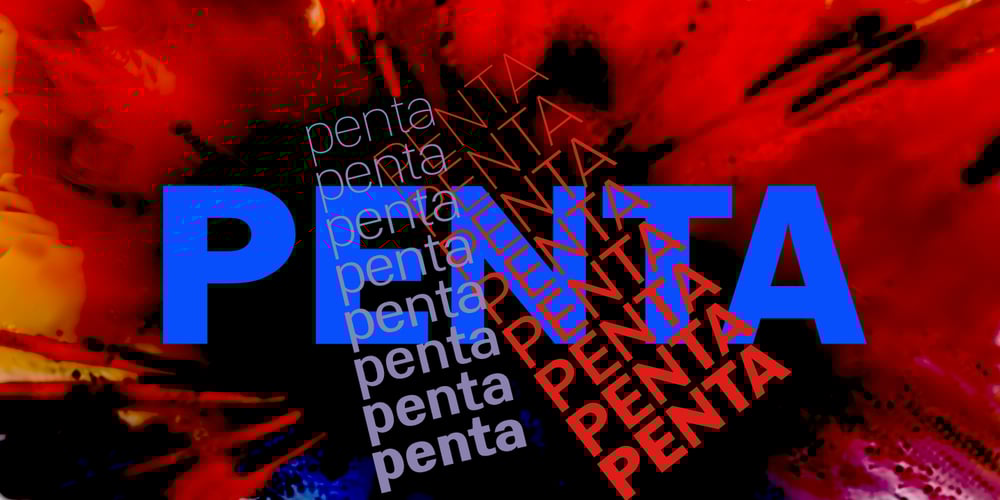
Penta
Penta font
Penta Font Family was designed by Gert Wiescher and published by Wiescher Design. Penta contains 16 styles and family package options. »Penta« is a new Sans typeface, designed in the American tradition with contrast between the up- and downstrokes. The contrast is hardly visible on the »thin« cut, but the heavier the weights get, the more contrast becomes visible. That makes this font very useful, almost linear in the lighter weights and very distinct rhythm in the heavier ones. »Penta« is extremly versatile, it can be used for bodycopy in the lighter weights and for heavy headlines.